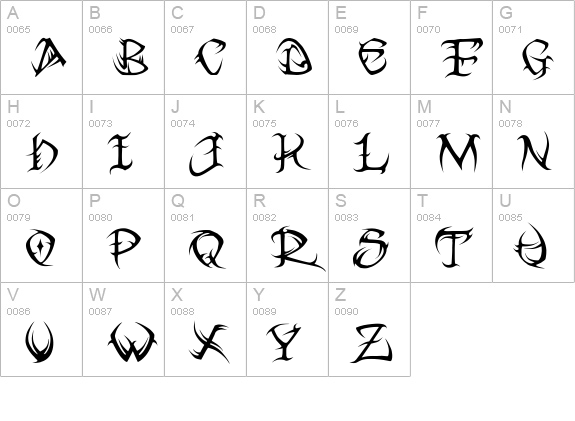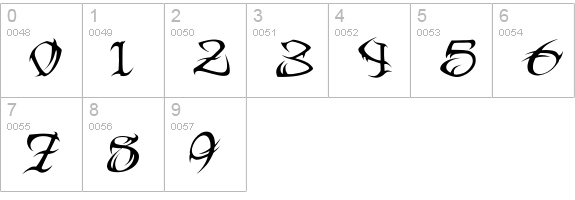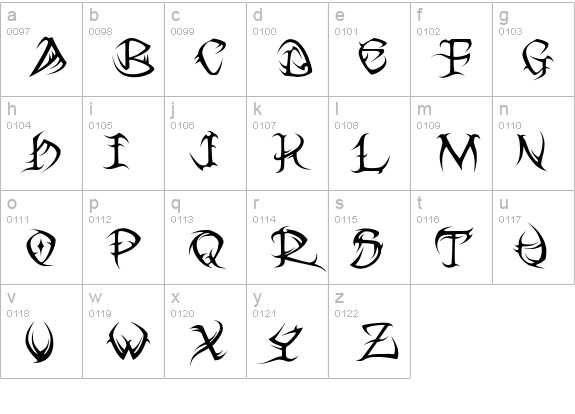
VTC Tribal Regular Font Details
VTC Tribal Regular is the standard, neutral variant in the VTC typeface family \xE2\x80\x94 well suited to general body text, paragraphs, and standard typographic work.
VTC Tribal Regular font is a stunning display typeface that exudes a sense of tribal mystique and cultural richness. Its intricate tribal-inspired patterns and bold, angular letterforms make it a truly eye-catching choice for any design project seeking to make a powerful statement. This font combines the ancient artistry of tribal motifs with modern design sensibilities, resulting in a unique and captivating visual experience. The precise detailing and carefully crafted curves give each character a distinctive presence, making it perfect for logos, headlines, posters, and other graphic designs that require an element of boldness and individuality. One of the most remarkable aspects of VTC Tribal Regular font is that it is available for free. Yes, you read that right – this extraordinary typeface can be freely downloaded from FontsMarket.com. This means that designers, creatives, and enthusiasts can enjoy the exceptional quality and aesthetic appeal of this font without any cost or restrictions. By offering VTC Tribal Regular font as a free resource, FontsMarket.com ensures that it is easily accessible to anyone who wishes to incorporate its striking visuals into their projects. Whether you are a professional designer looking to add a touch of tribal flair to your work or a student experimenting with typography, this font is an excellent choice that won't break the bank. With its free availability and remarkable design, VTC Tribal Regular font is a truly exceptional addition to any font library. Its attention-grabbing aesthetics and cultural influences make it a versatile choice for a wide range of design applications. Download it today from FontsMarket.com and embark on a creative journey that combines tradition and modernity in a visually captivating manner.